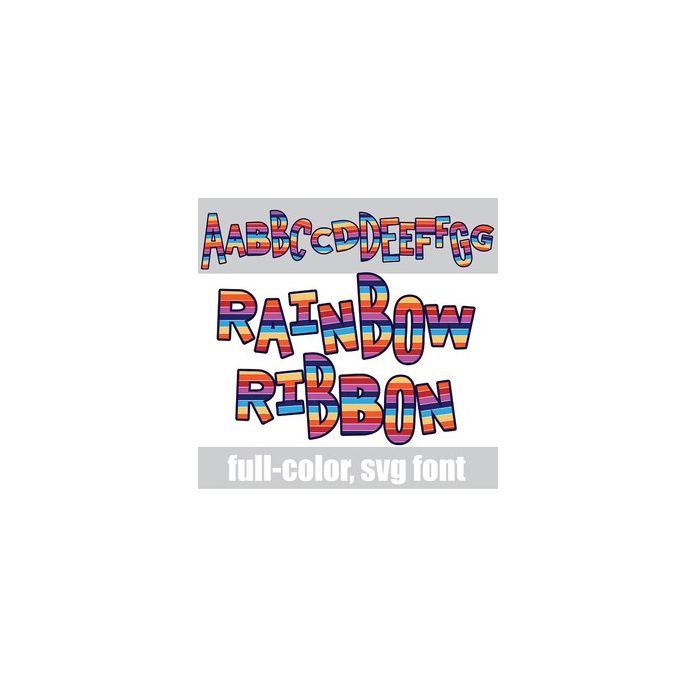
This full-color font features a whimsical sans serif lettering with rainbow stripes. There is an alt case w/ additional colors you can access through your system or Silhouette's glyph map.